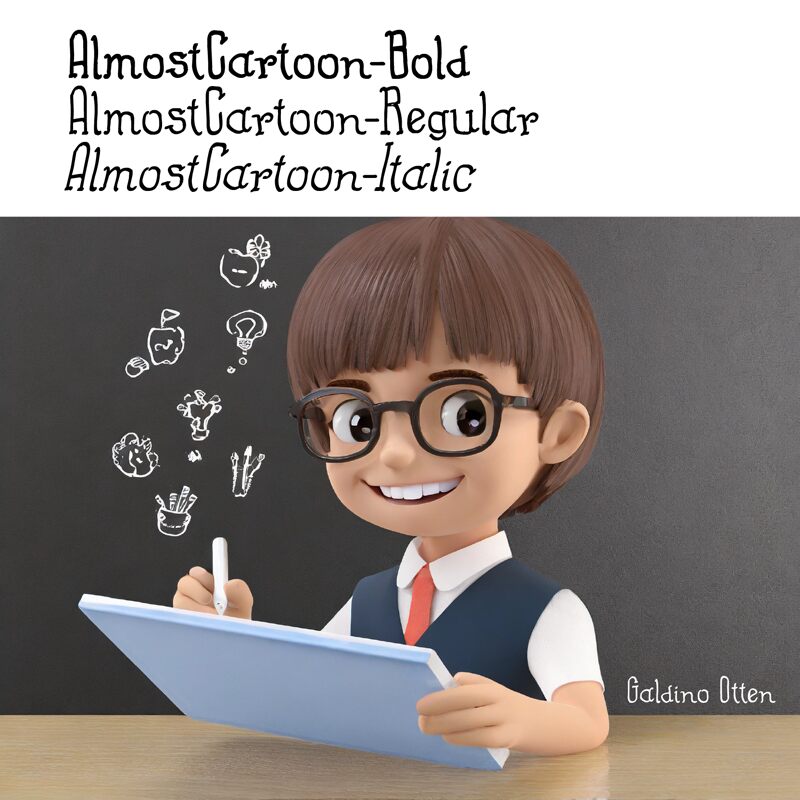
Almost Cartoon Bold
Almost Cartoon is a display font that exudes a captivating, hand-drawn aesthetic. Its bold, condensed strokes and whimsical, cartoon-inspired style make it a standout choice for attention-grabbing designs. The font's irregular, organic lines and quirky character shapes lend a playful, energetic vibe that is well-suited for branding, headlines, and other creative applications. From retro-inspired posters to vibrant children's illustrations, "Almost Cartoon" offers a distinctive visual flair that can elevate the visual impact of a wide range of projects.
The font's versatility extends beyond its stylistic appeal. Its condensed width allows for compact, space-efficient typesetting, making it a practical option for limited-space design layouts. Designers seeking to infuse their work with a sense of whimsy, nostalgia, or youthful energy will find Almost Cartoon a captivating and versatile addition to their typographic toolkit.